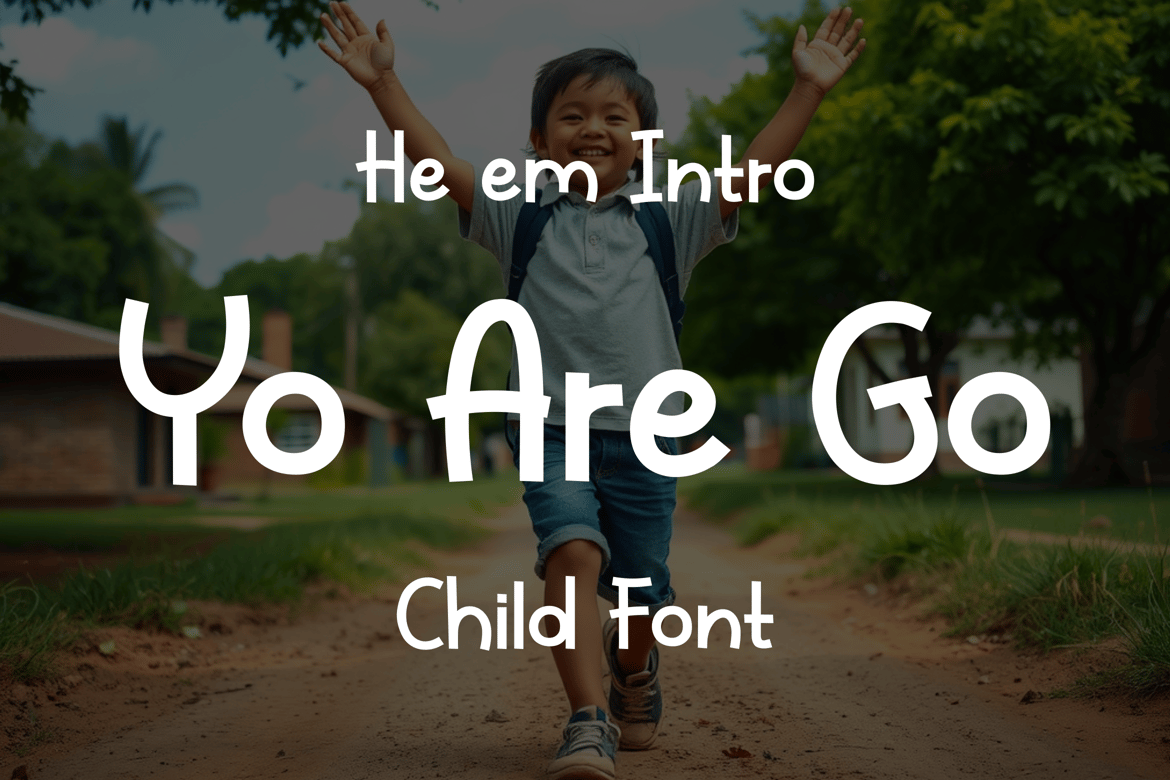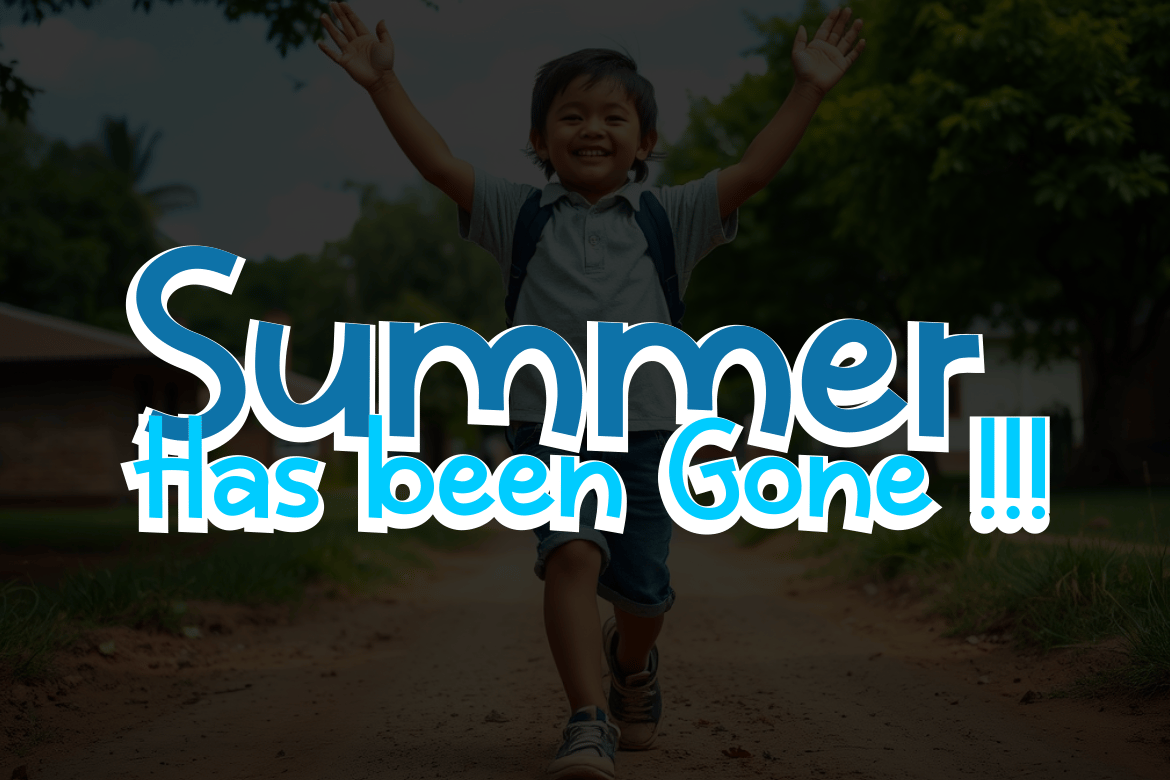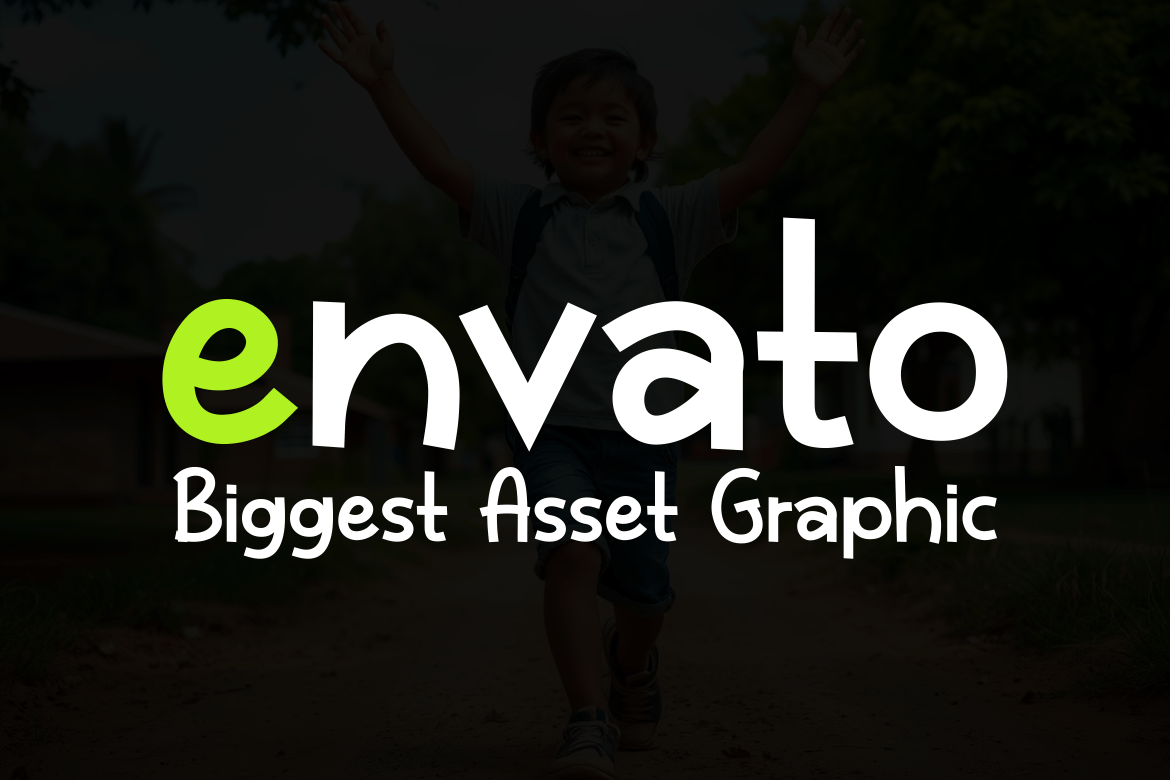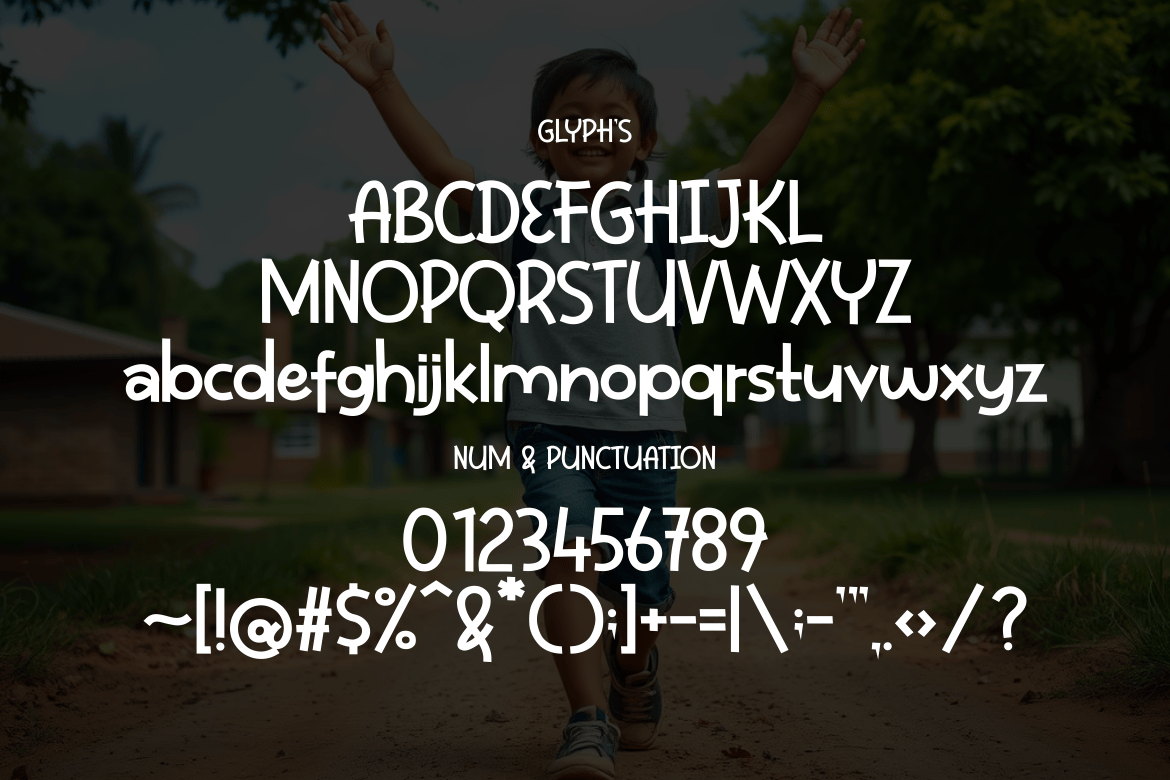
Yo Are Go Font
Playful Design: Engaging and energetic style that captures the fun of childhood.
Easy to Read: Clear characters ensure accessibility for kids and parents alike.